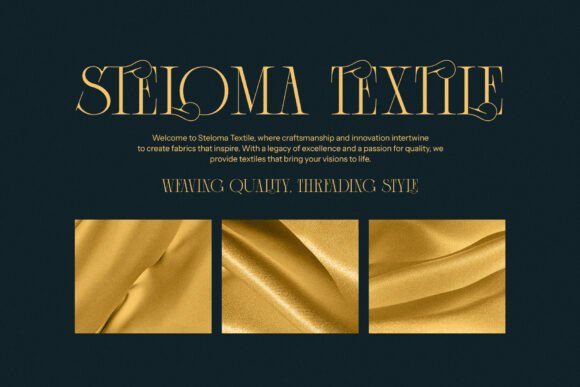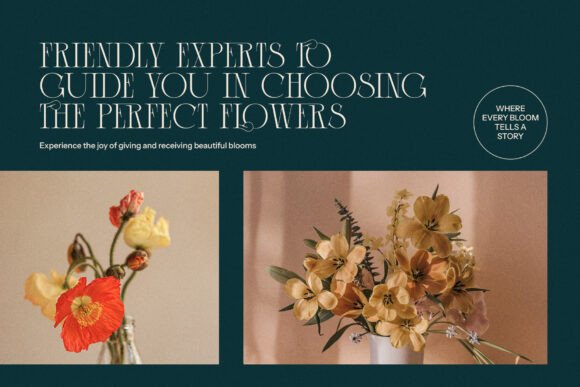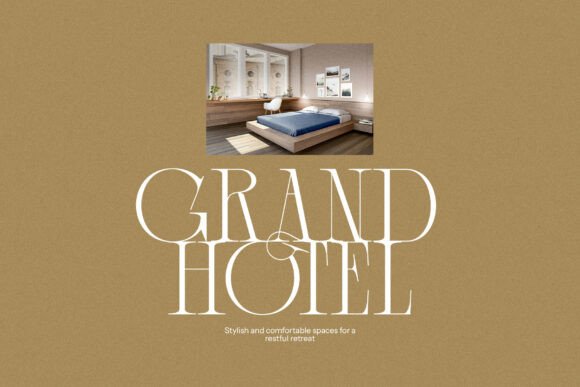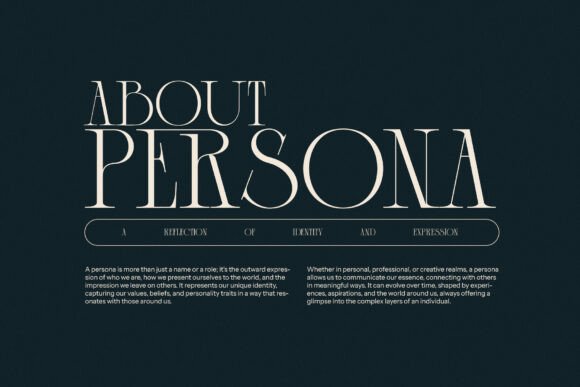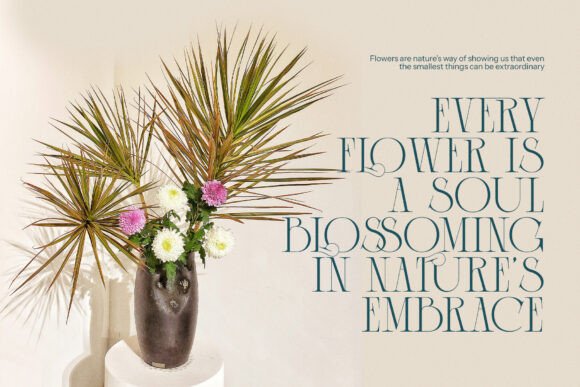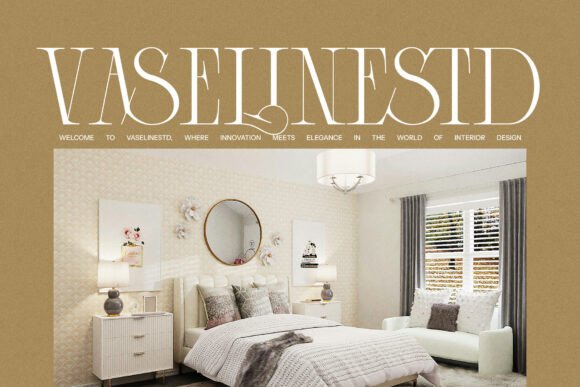
The Designer’s Dilemma: Finding Elegance in Fonts
I still remember the countless hours I spent searching for the perfect font for a client’s luxury brand project. The brief was simple: create a logo that exuded sophistication and elegance. I scrolled through page after page of Google search results, tried out dozens of fonts, but nothing seemed quite right. That was until I stumbled upon **Fox Thess Font**. In this article, I’ll share my experience with this elegant serif font, its features, and how you can make the most of it in your designs.
First Impressions: A Love Affair with Fox Thess
As soon as I saw **Fox Thess Font**, I knew I had found something special. Its refined serifs and graceful curves immediately caught my attention. I was impressed by its unique and stylish aesthetic, which added a touch of luxury and class to my design project.
- ✨ Elegant Serif Design: Fox Thess boasts a sophisticated and modern typeface that blends timeless elegance with contemporary design.
- ✅ Versatility: Its distinct, refined serifs and graceful curves make it a standout choice for various projects, from logos to magazine layouts.
- 💡 Unique Aesthetic: The font’s stylish aesthetic elevates designs with a touch of luxury and class.
While Fox Thess is an excellent font, there are a few things to keep in mind:
- ⚠️ Legibility at Small Sizes: Like many serif fonts, Fox Thess may lose legibility at very small sizes. It’s best used at larger sizes or for headlines.
- 🤔 Pairing with Other Fonts: Due to its distinctive style, Fox Thess can be challenging to pair with other fonts. Experiment with different combinations to find the perfect match.
A Practical Guide: Using Fox Thess in Your Designs
- Experiment with OpenType features, such as Stylistic Alternates and Glyphs, to add more flair to your design.
The Designer Inspiration Behind Fox Thess
The story behind Fox Thess is one of passion and dedication. The designer, inspired by classic serif fonts, aimed to create a modern typeface that blended elegance with sophistication. Through countless hours of refinement and iteration, Fox Thess was born – a font that embodies the perfect balance of style and luxury.
Q: What makes Fox Thess unique?
A: Fox Thess boasts a distinctive, refined serif design and elegant curves that set it apart from other fonts.
Q: Is Fox Thess suitable for body text?
A: While Fox Thess is an excellent font, it’s best used for headlines and titles. For body text, consider a font with better legibility at smaller sizes.